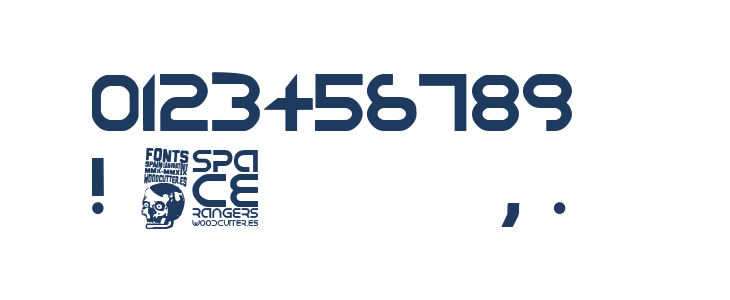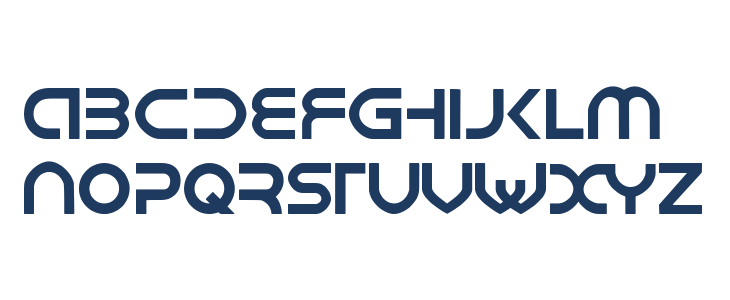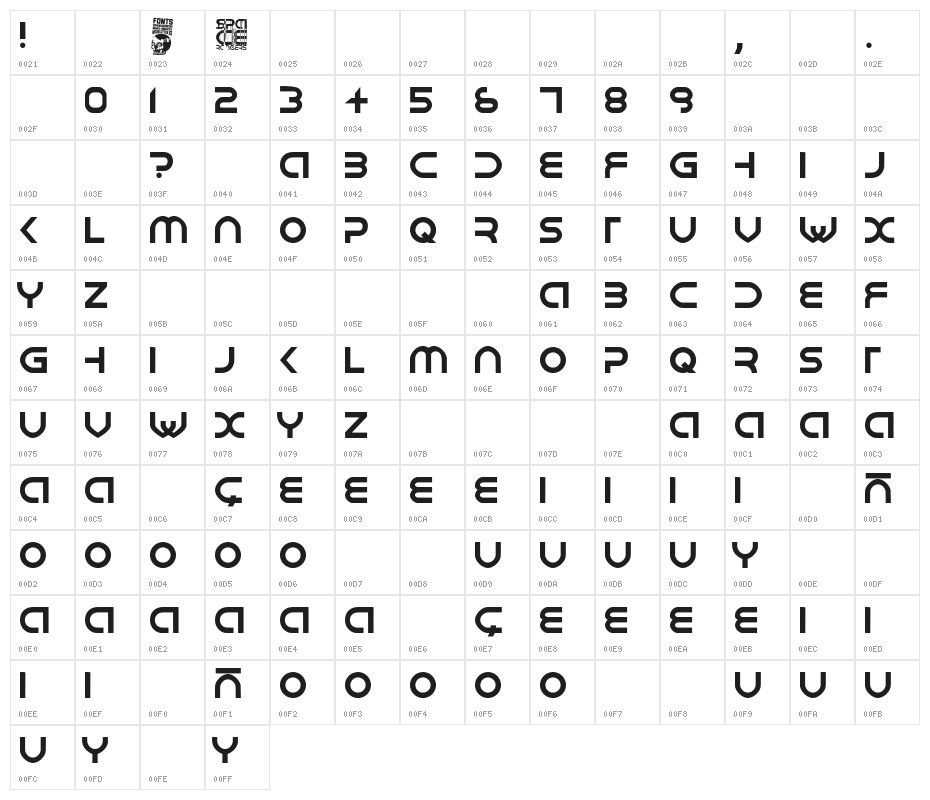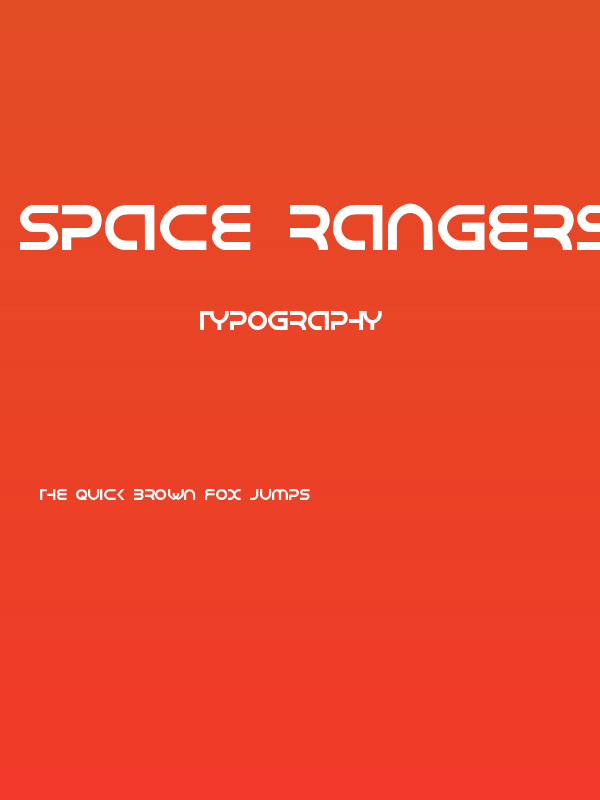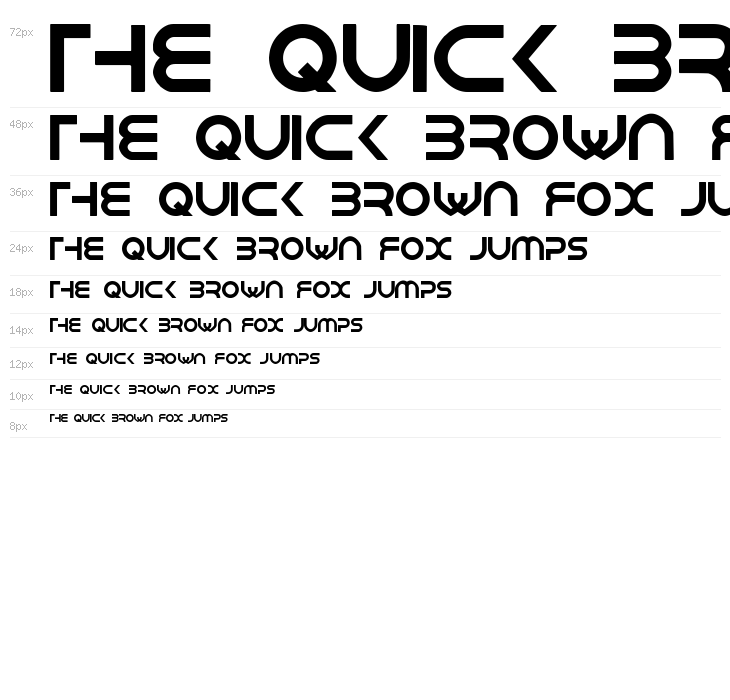
Space Rangers Font
Space Rangers Description
A geometric, futuristic sans-serif font with rounded and angular shapes, featuring consistent stroke thickness and a modern, sci-fi aesthetic. The characters are constructed with clean lines and minimalistic forms, giving a technical and digital impression.
| Overall Style | Modern, Futuristic, Decorative |
| Use Case | Headlines, Logos, Posters, Display text |
| Proposed Projects | Science fiction posters, video game titles, tech branding, space-themed events, movie logos. |